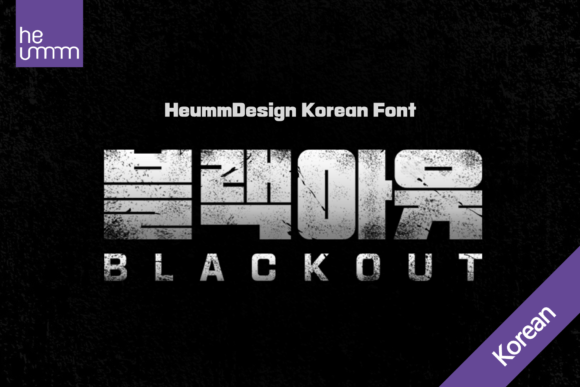
Blackout Kr: A Bold Slab Serif for Modern Web Design
As a web designer, I recently had the opportunity to test Blackout Kr in a real project. This Slab Serif font is perfect for creating a strong, modern, and polished look for any digital layout. The unique design of Blackout Kr, with its letters feeling trapped in a square and having a very narrow inner space, adds a distinctive touch to any website.
Blackout Kr for Creative Portfolio Websites
When designing a creative portfolio, the choice of font can make or break the overall aesthetic. For my latest project, I used Blackout Kr in the hero section. The bold, geometric nature of this Slab Serif immediately caught the eye, setting a professional and innovative tone. The narrow inner space of the letters made the text feel compact yet impactful, ideal for a portfolio that needs to stand out.
Using Blackout Kr in Boutique Online Store Banners
For an online boutique, the visual appeal of the font is crucial. I experimented with Blackout Kr in the store's banners and found it to be a perfect fit. The Slab Serif style added a touch of elegance and sophistication, making the products appear more premium. The consistent and narrow inner space of the letters also helped in maintaining a clean and uncluttered look, which is essential for a seamless shopping experience.
Blackout Kr for Coaching Website Headlines
A coaching website needs to convey trust and professionalism. I used Blackout Kr for the headlines on a recent coaching site redesign. The Slab Serif typeface provided a strong, authoritative presence, while the narrow inner space kept the text readable and engaging. This combination helped in building a sense of reliability and expertise, which is key for a coaching brand.
Enhancing Product Landing Pages with Blackout Kr
Product landing pages require a font that can grab attention and guide the user's focus. I incorporated Blackout Kr into the main headings and call-to-action areas. The Slab Serif style stood out, drawing the user's eye to the most important information. The consistent and narrow inner space of the letters also contributed to a clean and organized layout, enhancing the overall user experience.
Blackout Kr in Blog Headers for a Modern Look
For a blog redesign, I used Blackout Kr in the headers. The Slab Serif style brought a modern and fresh vibe to the blog, making it more visually appealing. The narrow inner space of the letters ensured that the text remained clear and easy to read, even when scaled down for mobile devices. This made the blog feel more accessible and engaging for readers.
Readability and Visual Hierarchy with Blackout Kr
One of the key aspects of using Blackout Kr is its impact on readability and visual hierarchy. The Slab Serif style, with its bold and geometric design, naturally draws the eye, making it ideal for titles and headings. The narrow inner space, while adding a unique aesthetic, also helps in maintaining clarity, especially on smaller screens. This balance between style and readability is crucial for any web design project.
Font Pairing with Blackout Kr for a Cohesive Brand Identity
To create a cohesive brand identity, I paired Blackout Kr with a simple sans serif font for the body copy. The Slab Serif style of Blackout Kr provided the necessary visual weight for headings, while the sans serif kept the overall design clean and legible. This combination not only enhanced the visual appeal but also improved the user experience by ensuring that the content was easy to read and navigate.
Practical Tips for Using Blackout Kr in Web Design
- Check Included Styles: Before using Blackout Kr, explore the different styles and weights available. This will help you find the perfect match for your design needs.
- Webfont Availability: Ensure that the Slab Serif is available as a webfont, which is essential for smooth integration into your website.
- File Formats and Alternates: Verify the file formats and check for any alternates or additional characters that can add versatility to your design.
- Multilingual Support: If your project requires multilingual support, confirm that Blackout Kr includes the necessary characters and languages.
In conclusion, Blackout Kr is a versatile and stylish Slab Serif font that can elevate any web design project. Its unique design, combined with its readability and visual impact, makes it a valuable addition to any designer's toolkit. Whether you're working on a creative portfolio, an online store, a coaching website, or a product landing page, Blackout Kr can help you achieve a polished and professional look.